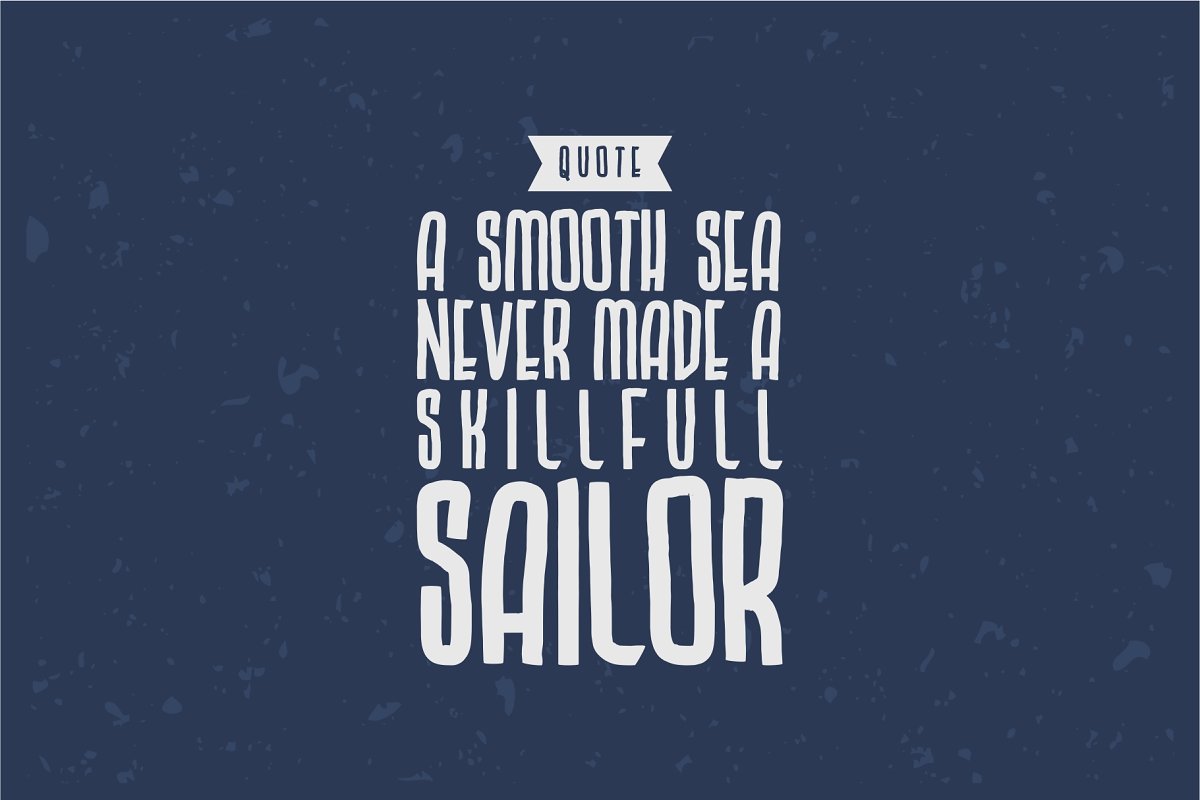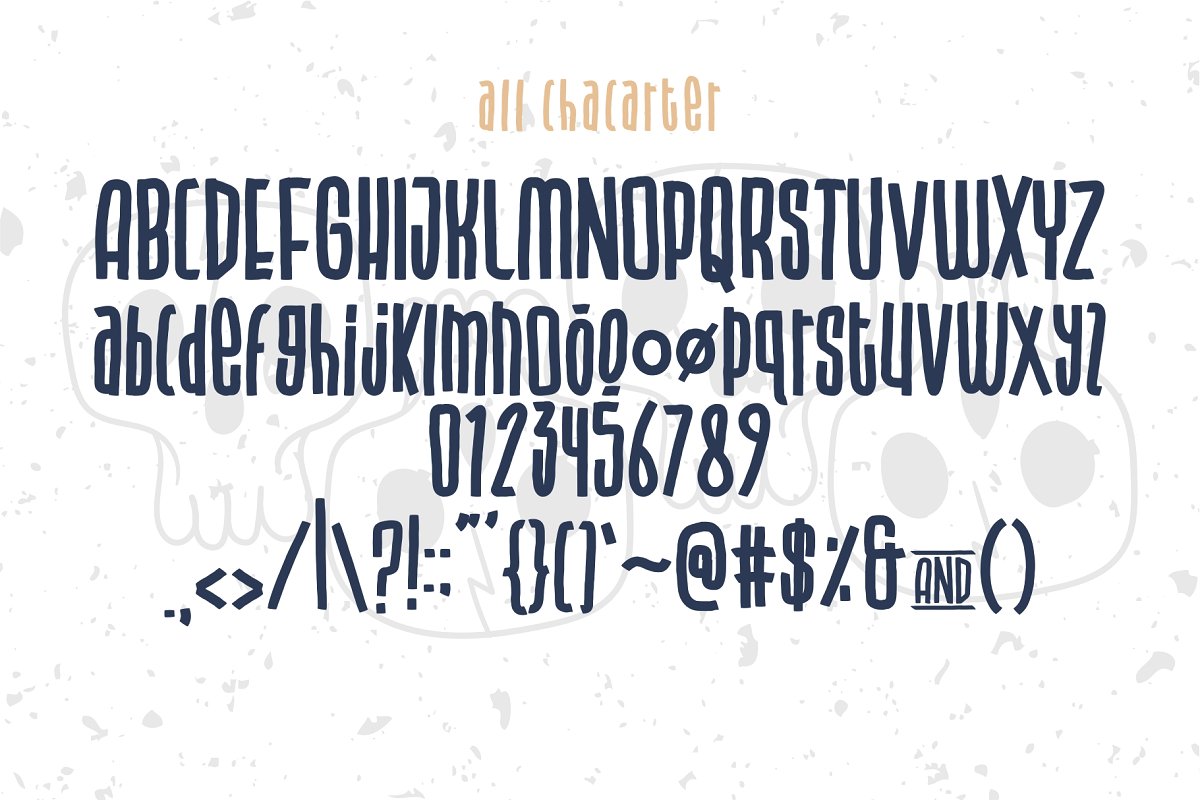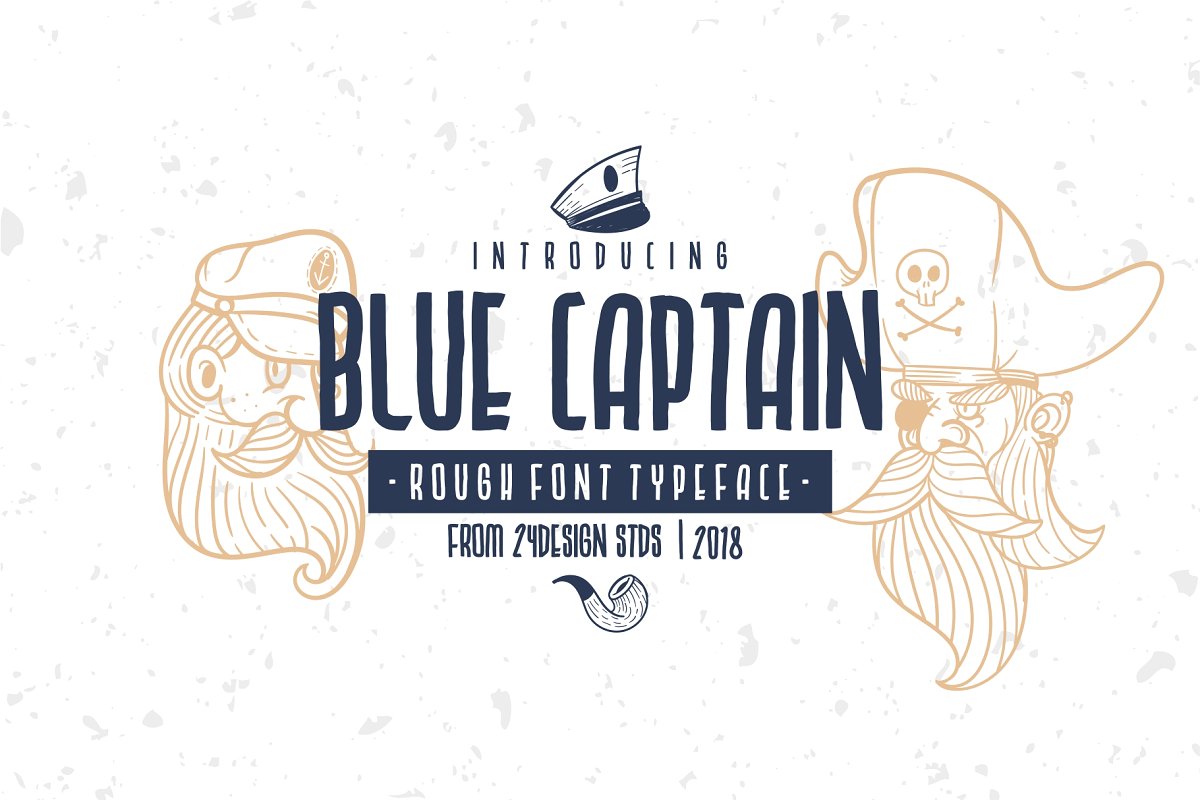
BLUE CAPTAIN TYPEFACE
Blue Captain is a font with a rough style, so that it looks very masculine, this font is suitable for something that is as pleasant as it is installed for Instagram story, but this font is also suitable for logos, posters, headers, and other design needs. If you buy this font you will get a bonus vector element with the theme of sailors and pirates.